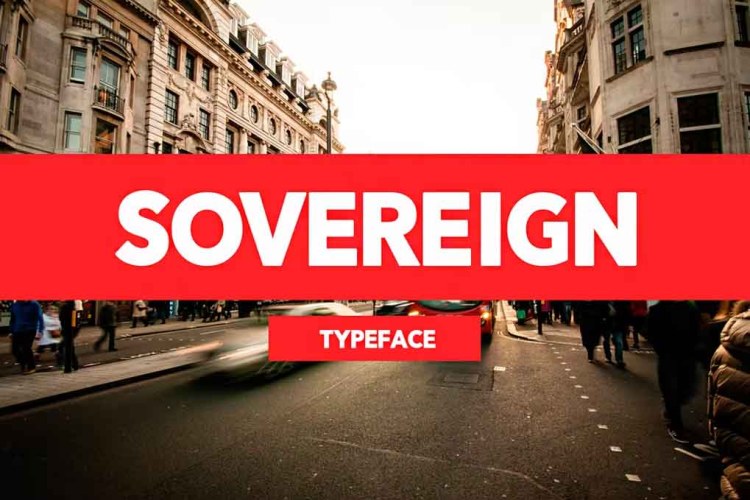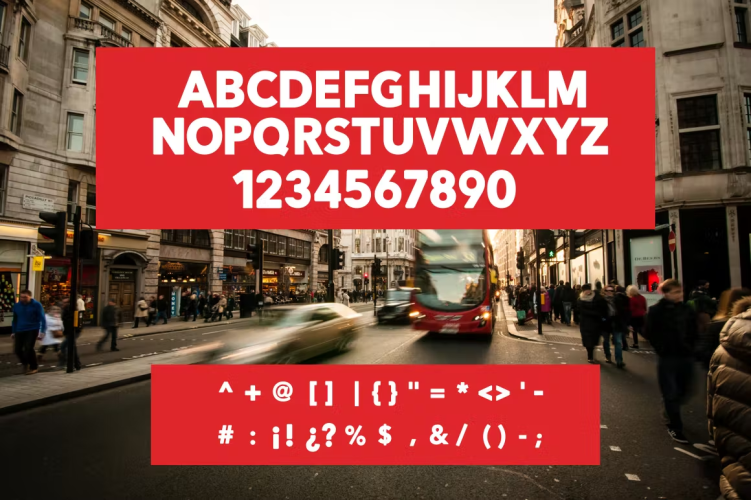
Sovereign Typeface Font
I’m really proud to present the Sovereign Typeface
This is an amazing typography for Bold and Modern Ideas, Creative Thinking and Urban Lifestyle. You will love it!
Create Amazing Branding ideas, logos, labels, t-shirts, brochures, and more!
Sovereign Typeface Font is a Sans Serif Fonts font that brings a professional and versatile look to your projects. I’m really proud to present the Sovereign Typeface This is an amazing typography for Bold and Modern Ideas, Creative Thinking and Urban Lifestyle.